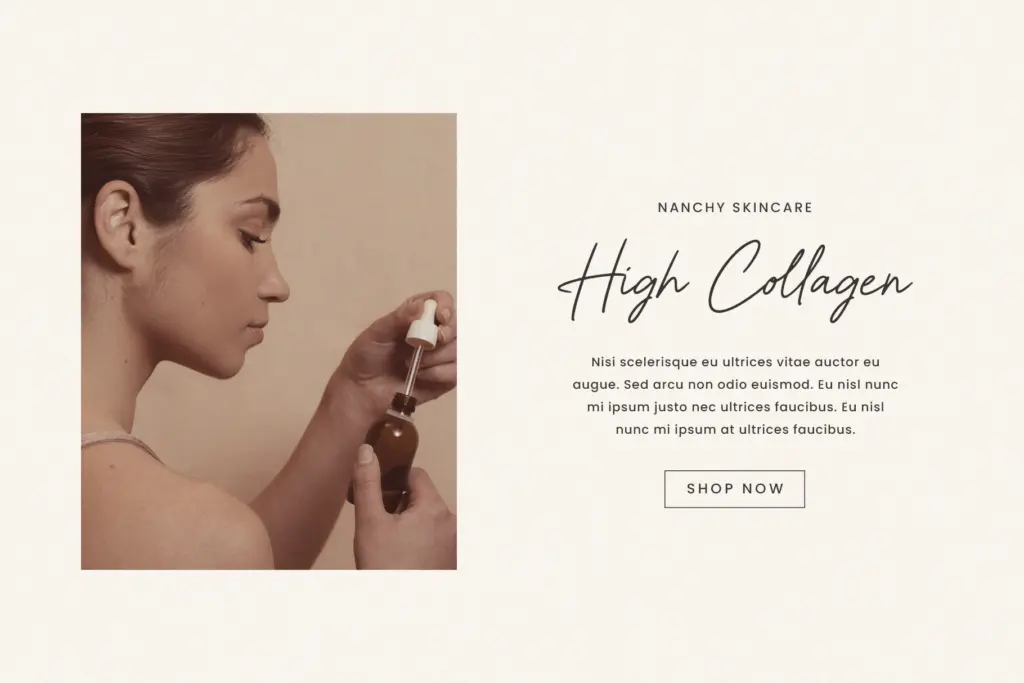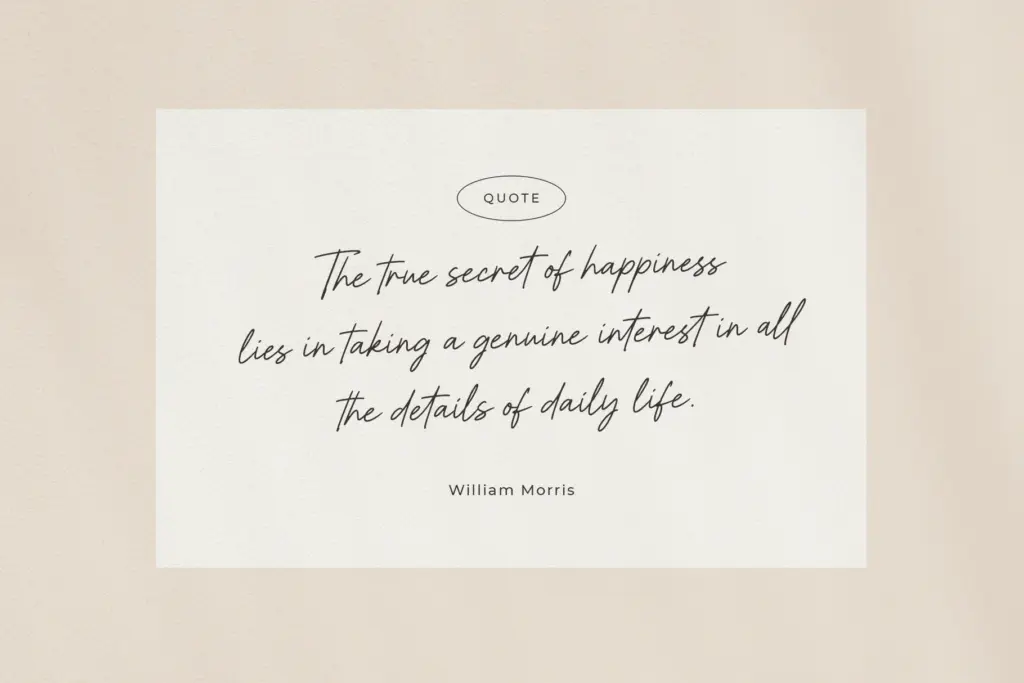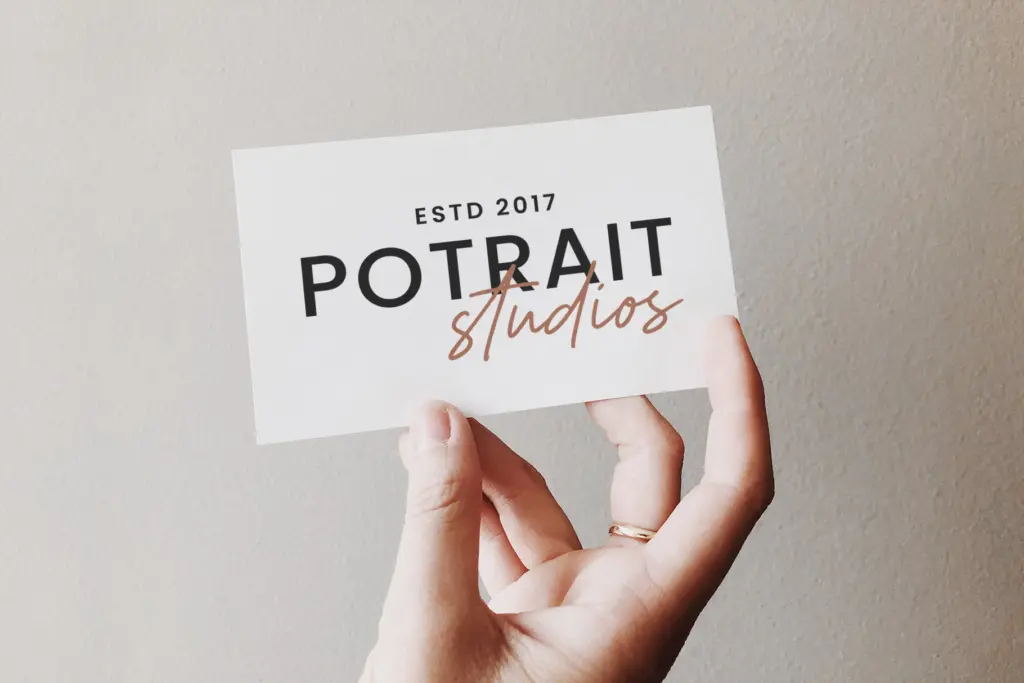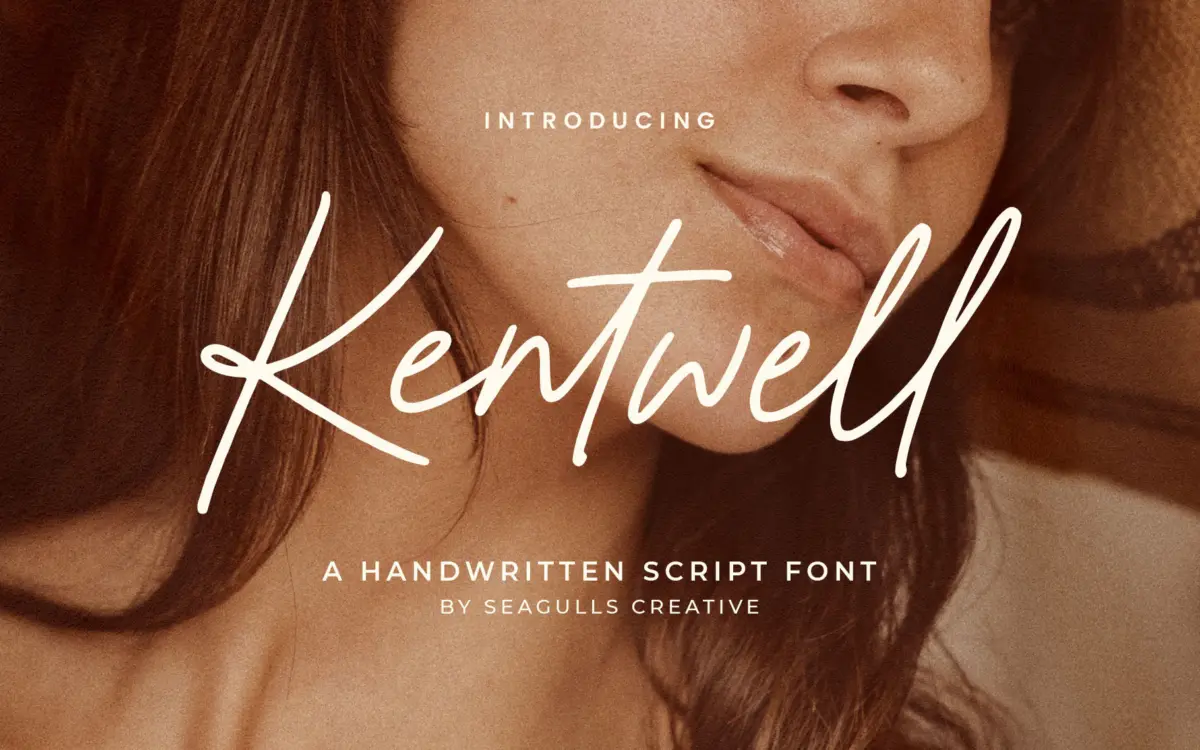
Kentwell belongs to the crowded family of casual, marker-style handwritten scripts that fill marketplace shelves: a single weight, moderate slant, and a brush-pen feel rather than a formal calligraphic one. The strokes are consistent in width with only slight tapering at stroke ends, which keeps the letters from feeling overly precious. It reads as friendly and unfussy rather than luxurious — closer to a note scrawled on a gift tag than a wedding invitation lettered by hand.
The joins between letters are where the personality sits. Connections are loose and slightly irregular, which gives the font a genuine handwritten cadence instead of the mechanical repetition you get from scripts built off one or two base letterforms. That said, the informality has a ceiling: at larger display sizes some of the connecting strokes thin out and can look slightly tentative rather than confident, so this isn’t a font that wants to be blown up to fill a poster on its own.
The set covers uppercase and lowercase letters, numerals, punctuation, and a run of ligatures, which is the standard toolkit for this style of script and is put to reasonable use here. The ligatures swap out awkward letter pairs — double letters, certain descender-ascender collisions — for smoother alternates, and they’re worth hunting through a glyph panel for rather than typing blind, since the default pairing isn’t always the most graceful option.
Multilingual support is included, which matters if a project needs accented characters, though buyers should check specific diacritics against their language needs rather than assume full coverage. There’s no companion sans or serif bundled in, so any pairing has to be sourced elsewhere — Kentwell is a single script face, not a family with built-in contrast.
This is a font built for supporting roles: a signature line on a business card, a hand-lettered accent on packaging, a short line on a social media graphic, a watermark-style logotype under a brand name. It works best set short — a word, a phrase, a name — where its looseness reads as charm rather than inconsistency. Push it into paragraph-length copy and the irregular baseline and variable joins start working against legibility; this was never meant to carry body text.
For branding work it’s a reasonable, low-risk choice when a brand wants approachable rather than upscale — think small-batch food labels, casual invitations, lifestyle social content — but it won’t do the heavy lifting a distinctive script needs to do for a brand that wants to stand out from the dozens of similar handwritten faces already circulating. Designers should test it at the actual output size before committing, since its character shows most clearly in the mid-range between a signature-sized flourish and full display use.
- Loose, irregular joins give it a genuine handwritten feel rather than a mechanical one.
- Ligature set smooths over awkward letter pairs when used deliberately.
- Multilingual support extends its usefulness beyond basic English copy.
- Connecting strokes thin out and look tentative at large display sizes.
- No companion sans or serif is included, so pairing requires sourcing another typeface.
Kentwell is a competent, friendly casual script that does short-form branding work well but doesn't distinguish itself from the many similar handwritten fonts on the market. Best used sparingly, for names, signatures, and accents rather than extended text or large-scale display.